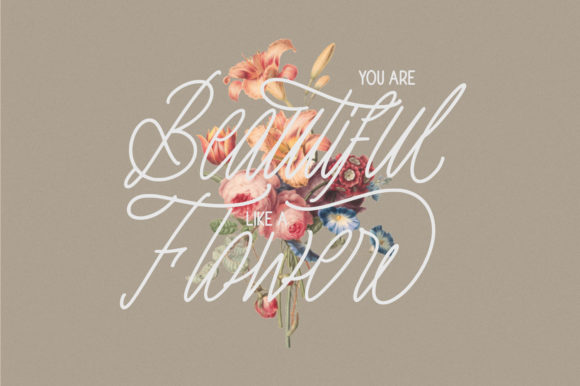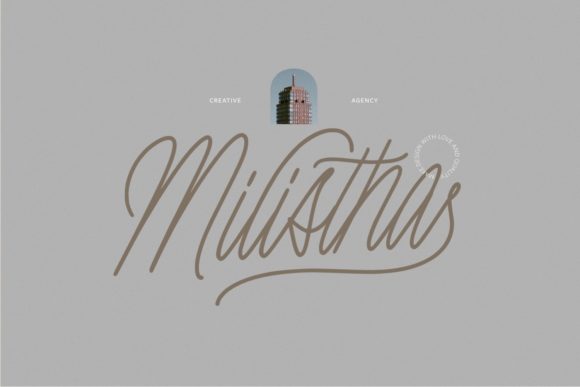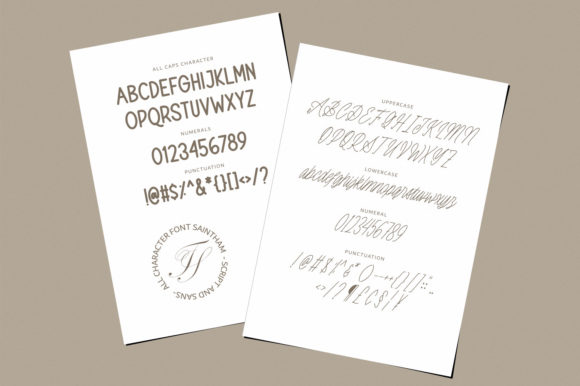
Introduction to Saintham Font
As a designer, you’ve probably experienced that moment when a project’s success hinges on the perfect font. It’s the moment when your vision comes together, and your design breathes life. For many creatives, this moment is a result of discovering the perfect font that complements their idea. Recently, I stumbled upon the Saintham Font, and I couldn’t wait to share its magic with fellow designers.
The Saintham Font is a duo font that boasts a unique blend of a monoline script and a sans serif font. This high-quality combination is not only visually stunning but also offers endless possibilities for creative projects. Whether you’re working on a branding project or designing a social media campaign, this font is sure to elevate your design to the next level.
Key Features of Saintham Font
- It features a unique, elegant design with a transparent background, making it perfect for overlaying on images or videos.
- The Saintham Font is available in a single size, making it suitable for a wide range of applications, from business cards to posters.
- With a high resolution of 300 DPI, the font ensures crisp and clear text, even when scaled up or down.
- The font’s elegant design and transparent background make it an excellent design resource for any project requiring a touch of sophistication.
Honest Review: Saintham Font
I recently had the chance to work with the Saintham Font, and I must say it’s a fantastic addition to any design resource library. The high quality of this font makes it perfect for creative projects that require a unique touch.
- ✨ High-quality design: The Saintham Font boasts intricate details and elegant lines that elevate any design to the next level.
- ✨ Transparent background: This feature allows you to easily combine the font with any background, making it super versatile.
While the Saintham Font is an excellent resource, there are a few limitations to consider:
- ⚠️ Limited font styles: Compared to other fonts, the Saintham Font has a relatively limited range of styles, which may not be suitable for every project.
- ⚠️ Compatibility issues: I experienced some compatibility issues with certain design software, so be sure to test it thoroughly before using it in a live project.
Overall, I’m impressed with the Saintham Font. Its unique design and free download make it a valuable addition to any design library. Just be aware of the potential limitations and test it thoroughly before using it in a live project.
Getting the Most Out of Saintham Font
To get the most out of the Saintham Font, use it in creative projects that require a unique, high-quality font. Experiment with combining the font with other design elements, such as images and graphics, to create visually appealing designs.
The Saintham Font is ideal for various design projects, including logos, business cards, and marketing materials. Its unique design style makes it a great choice for creative projects that require a high-quality, free download font with a transparent background.